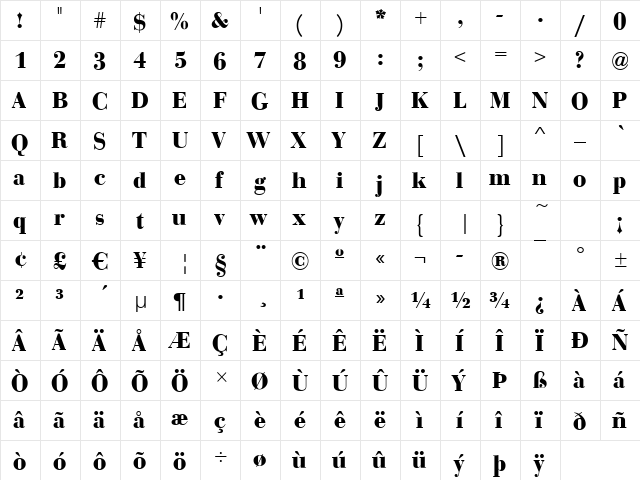
Bodoni-Display Bold Font Preview
Bodoni-Display Bold
Bodoni-Display Bold Font Details
Design Context for Bodoni-Display Typeface
Bodoni-Display is built around its visual character rather than neutral utility — its distinctive forms are designed to make an impression at display sizes. The heavy weight commands attention and anchors typographic hierarchies.
Font Pairing: Pair with a clean neutral sans-serif for body copy to let Bodoni-Display's character lead without overwhelming the composition.
Pro Tip: Treat Bodoni-Display as the centrepiece of your typographic hierarchy. One strong heading set in a decorative face can carry an entire layout.